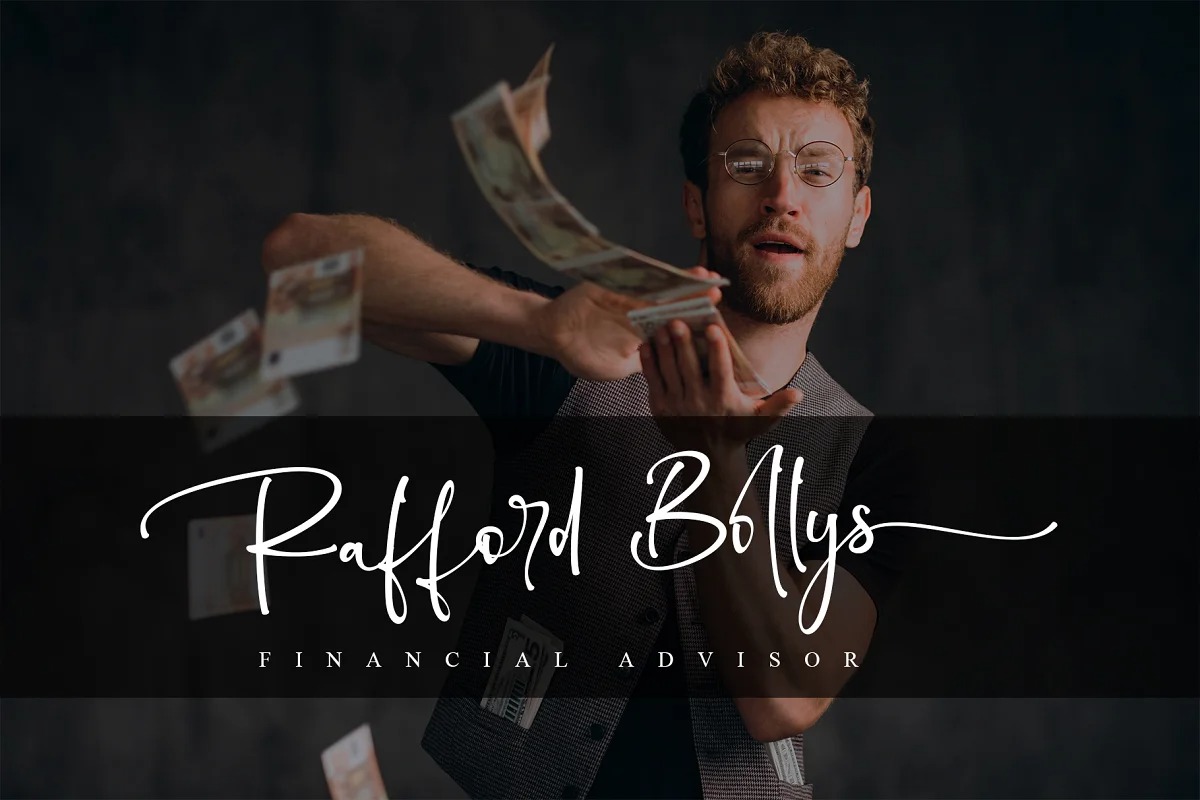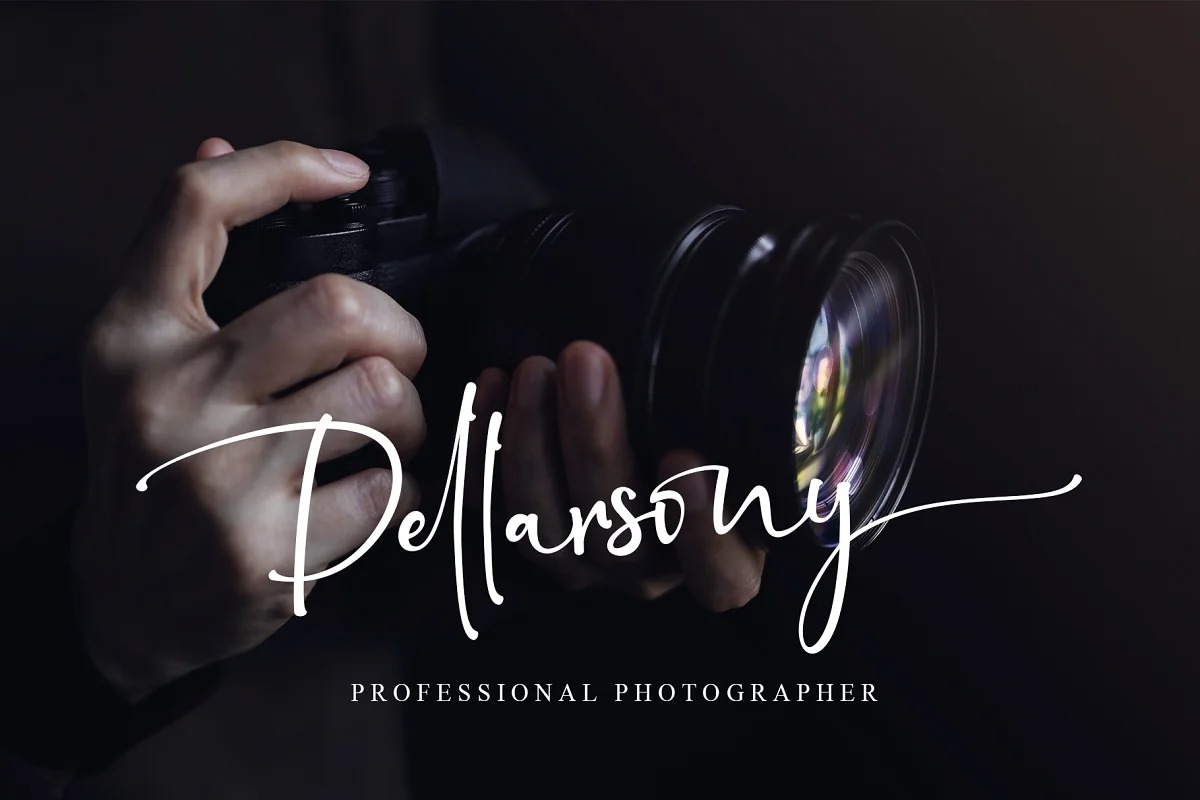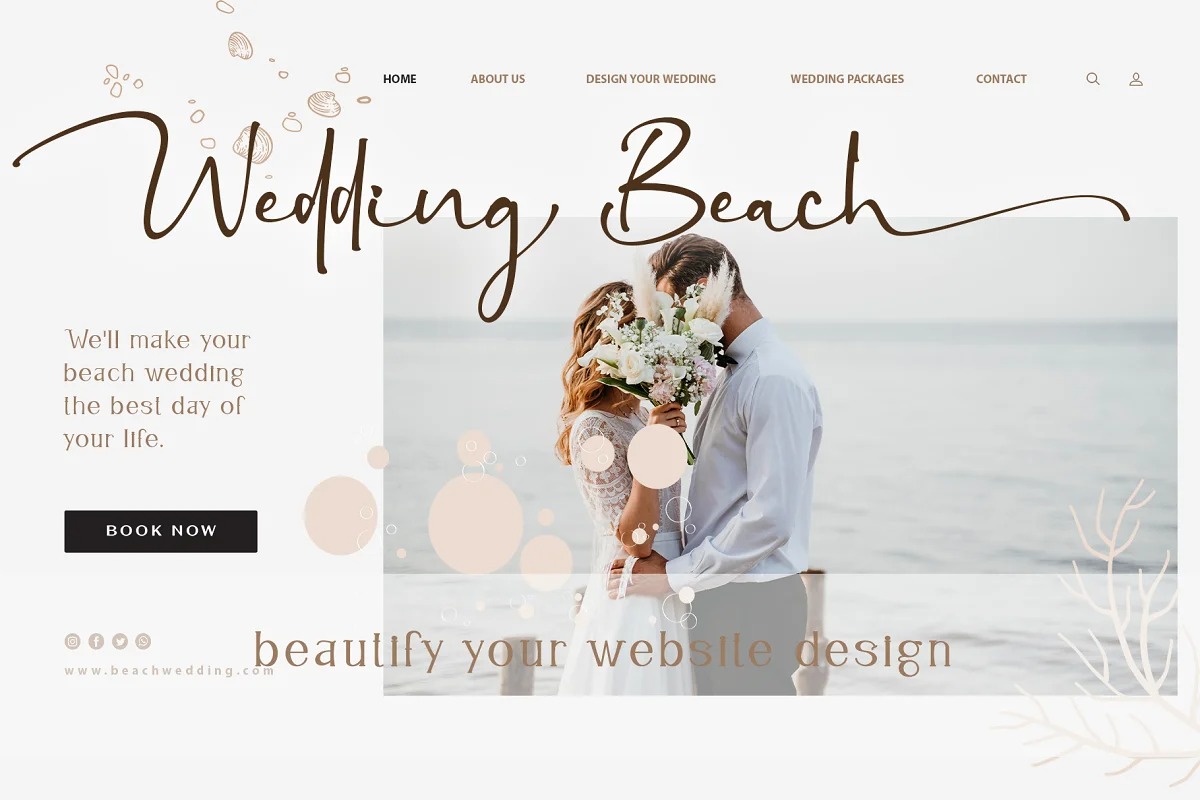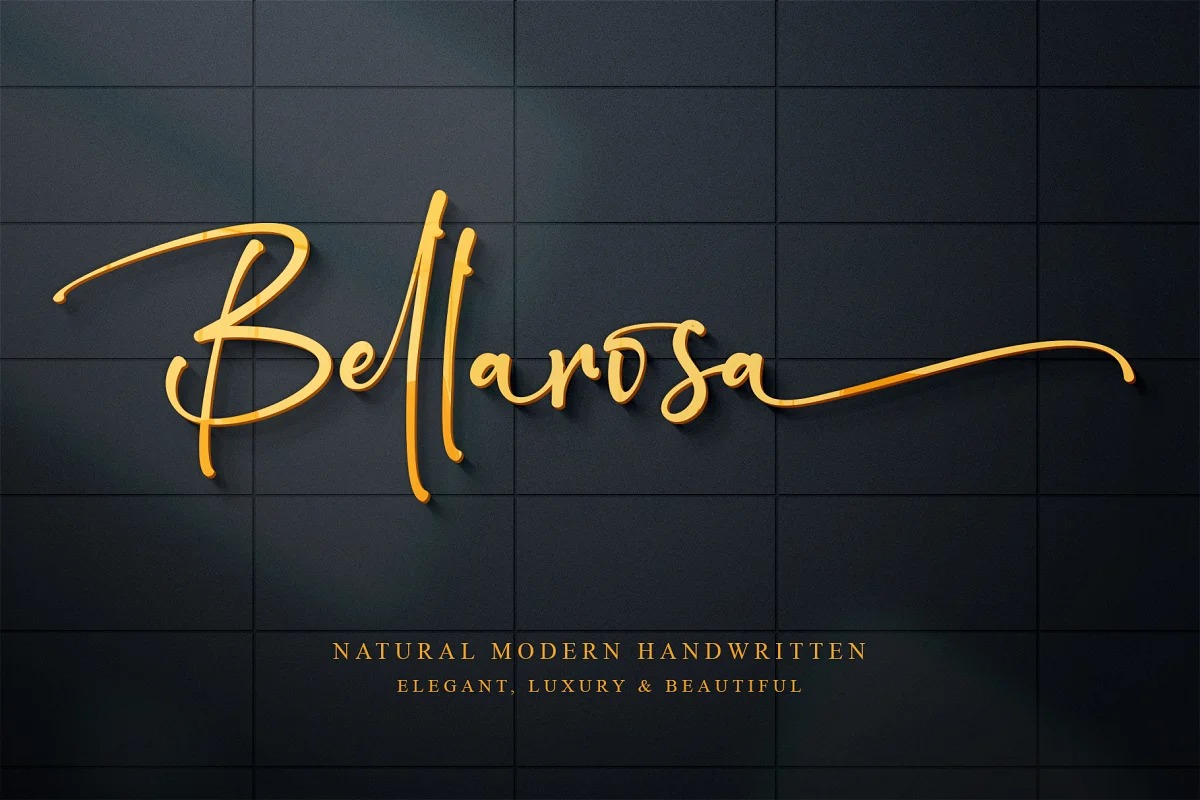
Bellarosa Font
Bellarosa Script Font is an inky imperfect modern calligraphy font created by Thomas Aradea with a handwriting style that has alluring looks. This lovely script font has a wide spectrum of applications ranging from greeting cards to headlines and is guaranteed to add a romantic feel to your next project. It will turn any design project into a true stand-out. Add it to your most creative ideas and notice how it makes them come alive! This font is PUA encoded which means you can access all of the amazing glyphs and swashes with ease! It also features a wealth of special features including alternate glyphs, swashes, and ligatures.